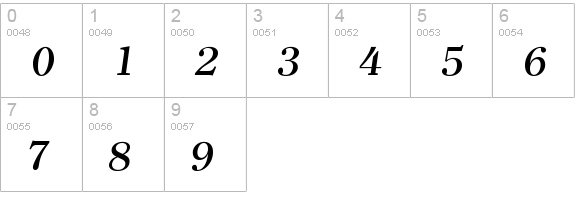
Clerface-MediumIta Font Details
Clerface-MediumIta is a stylish and versatile font that exudes elegance and sophistication. Its medium weight strikes the perfect balance between readability and impact, making it ideal for a wide range of design projects. The italicized characters add a touch of flair and personality to any text, while maintaining a professional and polished appearance. What makes Clerface-MediumIta even more appealing is that it is available for free download at FontsMarket.com. This means you can easily access this beautiful font and use it in your projects without any cost. Whether you're working on a branding project, a poster design, or a website layout, Clerface-MediumIta is sure to elevate your work with its timeless charm and modern appeal. Download it now and add a touch of sophistication to your designs!